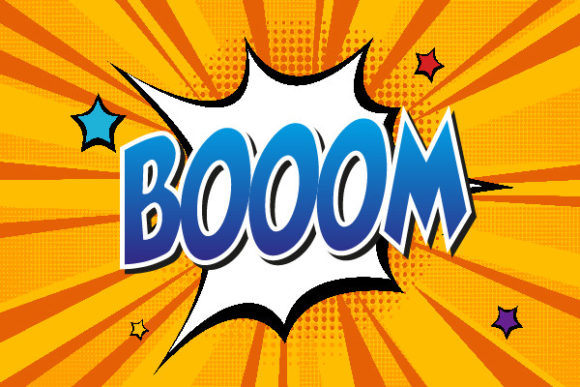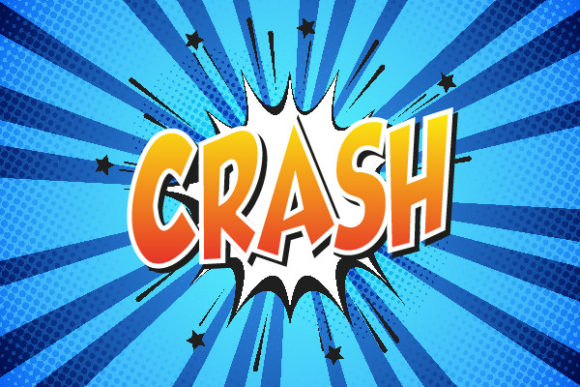
Introduction to Sengkuni Font
Have you ever stared at a blank canvas, waiting for inspiration to strike, only to find that the perfect words are trapped behind a sea of bland fonts? It’s a creative conundrum that many designers face, but fear not, because we’ve discovered a game-changing solution: the Sengkuni Font. This stunning display font is the ultimate design resource, capable of elevating any project with its bold and thick lettering.
Whether you’re working on a high-quality logo, a vibrant poster, or a captivating social media graphic, the Sengkuni Font is an invaluable asset to have in your toolkit. With its unique aesthetic, it can add a touch of sophistication and elegance to any creative project, making it a must-have for designers of all levels.
But what really sets Sengkuni Font apart is its versatility. Whether you’re working with a transparent background or a bold, eye-catching design, this font is sure to make a statement. And the best part? It’s available for free download, making it an accessible design resource for everyone.
Key Features of Sengkuni Font
- Designed with precision, offering a high-resolution font suitable for both print and digital applications.
- Includes a range of glyphs and characters, making it a versatile design resource for various creative projects.
Honest Review: Sengkuni Font
I recently came across the Sengkuni Font and I must say it’s a great addition to any designer’s arsenal. The font’s unique design and high-quality graphics make it perfect for creative projects that require a touch of elegance.
- ✨ High-quality graphics that make it perfect for printing
- ✨ A wide range of language support, making it a great resource for designers working on international projects
- ✨ A transparent background, allowing for easy use in creative projects
- ⚠️ Limited font styles, which may not be suitable for projects that require a wide range of font variations
- ⚠️ Not ideal for use in situations where a bold or italic font is required
Overall, I’m impressed with the Sengkuni Font and would highly recommend it as a free download for designers looking for a high-quality design resource. While it may not be perfect for every project, it’s definitely worth considering for your next creative endeavor.
For optimal results, use the Sengkuni Font in conjunction with a transparent background to create visually appealing designs. Experiment with different font sizes and styles to achieve the desired effect.
The Sengkuni Font is suitable for various creative projects, including graphic design, digital art, and web design. Use it to add a touch of elegance and sophistication to your designs.